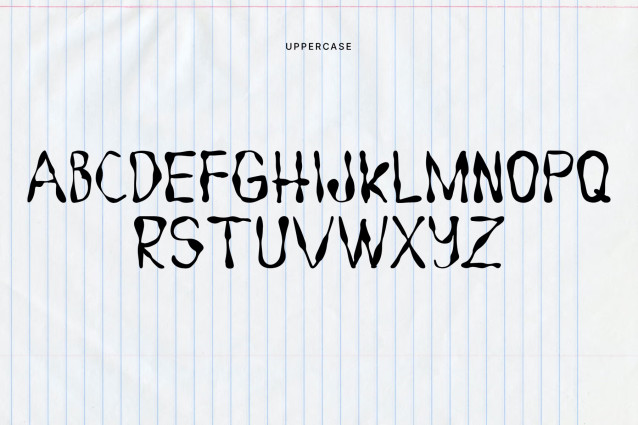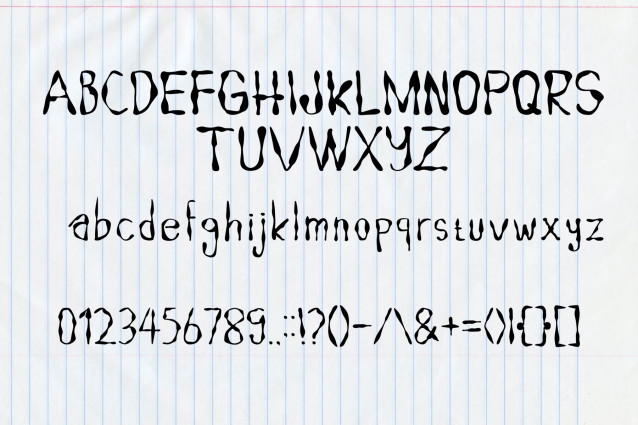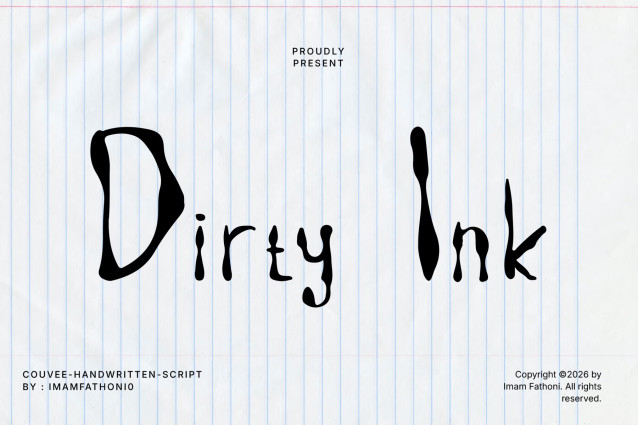
Add raw artistic texture, edgy hand-drawn character, and expressive fountain-pen flair to your designs with Dirty Ink! This distinct handwritten display font features irregular ink bleeds, pooling liquid strokes, and quirky, tall letter silhouettes. Its unpolished, authentic penmanship rhythm gives headlines an organic, artsy presence that commands instant curiosity.
Ideal for notebook art, album cover designs, edgy street style branding, creative quote prints, book covers, sticker graphics, and custom Cricut or Silhouette craft SVG projects!